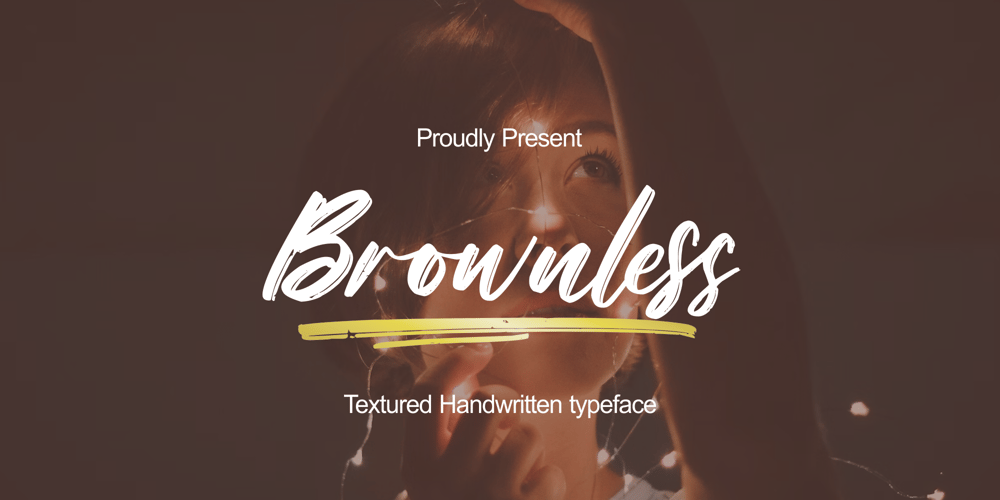
Brownless Font Family was designed by Zamjump and published by Zamjump. Brownless contains 1 styles and family package options. Introducing Brownless! This is a modern script font with a texture brush ink style. Recommended for those of you who want to create some designs with textures in font styles. This font will work for invitation designs, logos, badge designs, posters, packaging, book cover titles, quotes, social media posts, etc. Just go to your Opentype feature when using script fonts to use ligatures and swashes. Additionally, this font includes alternatives for upper and lower case characteristics. Included :- Ligature- Lowercase Alternate- Swash- Multilingual